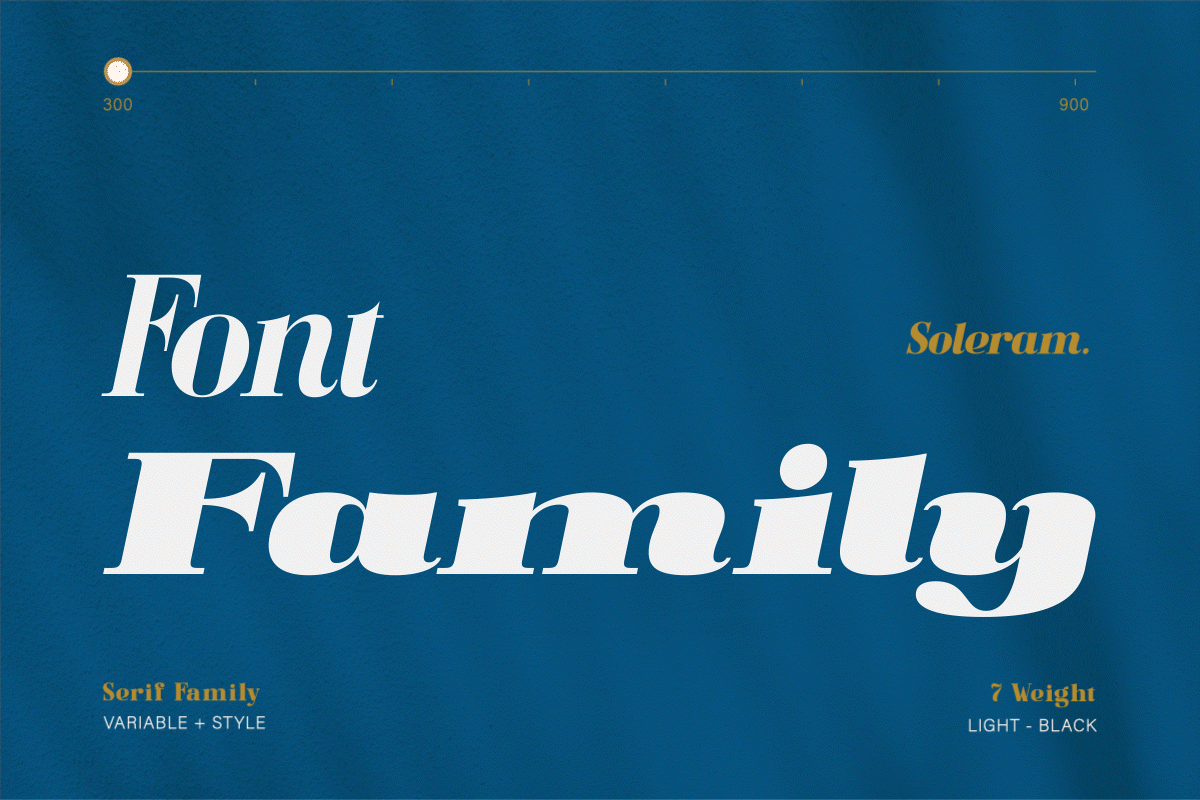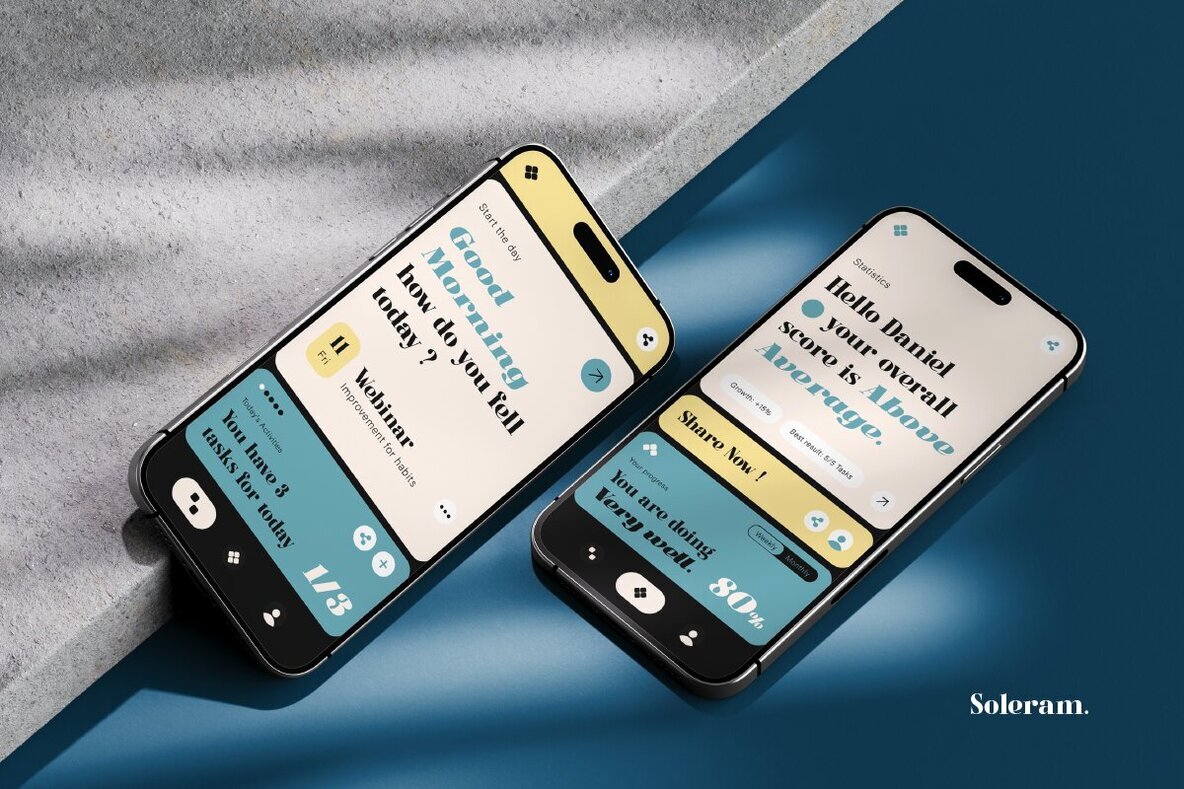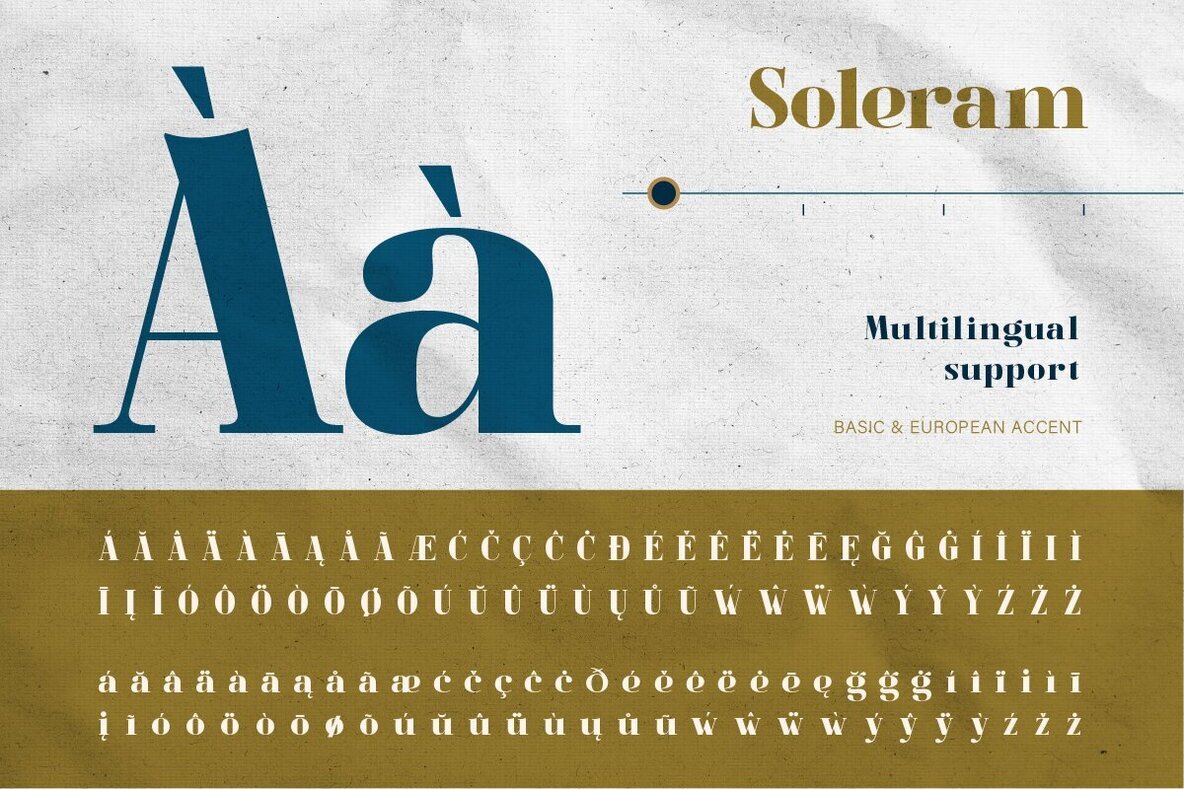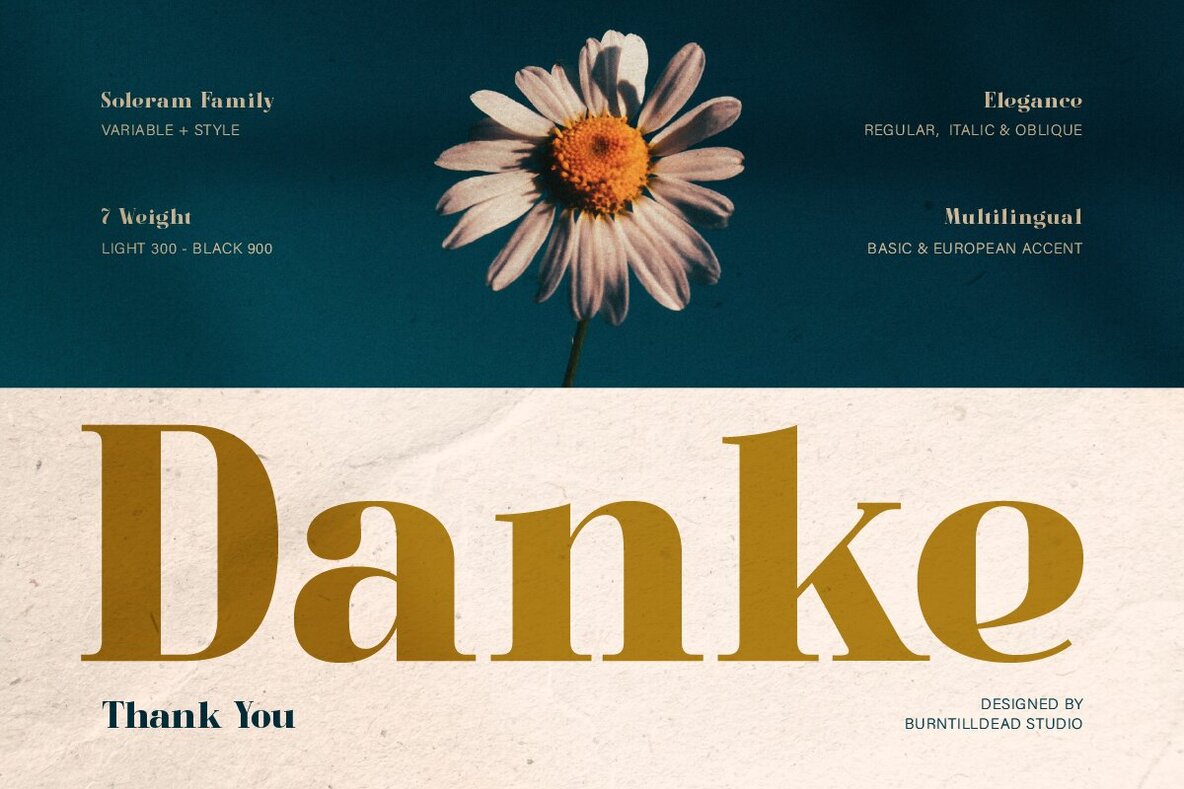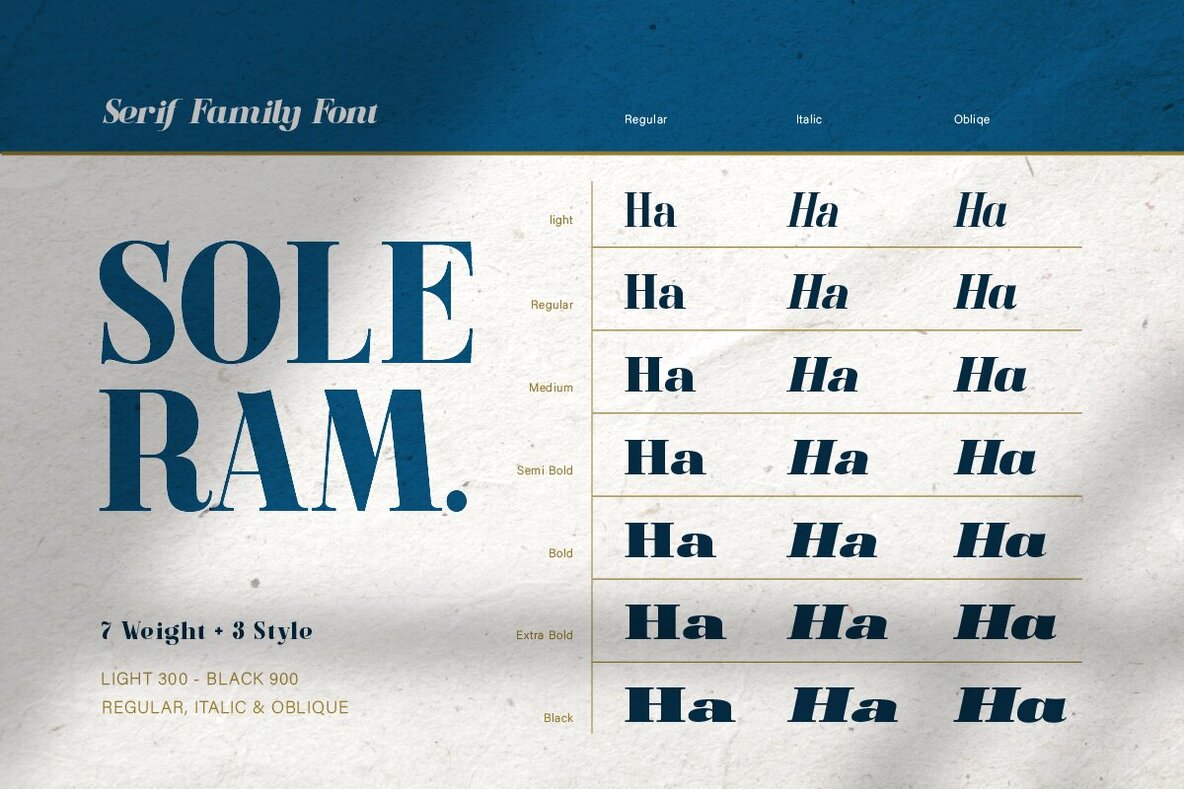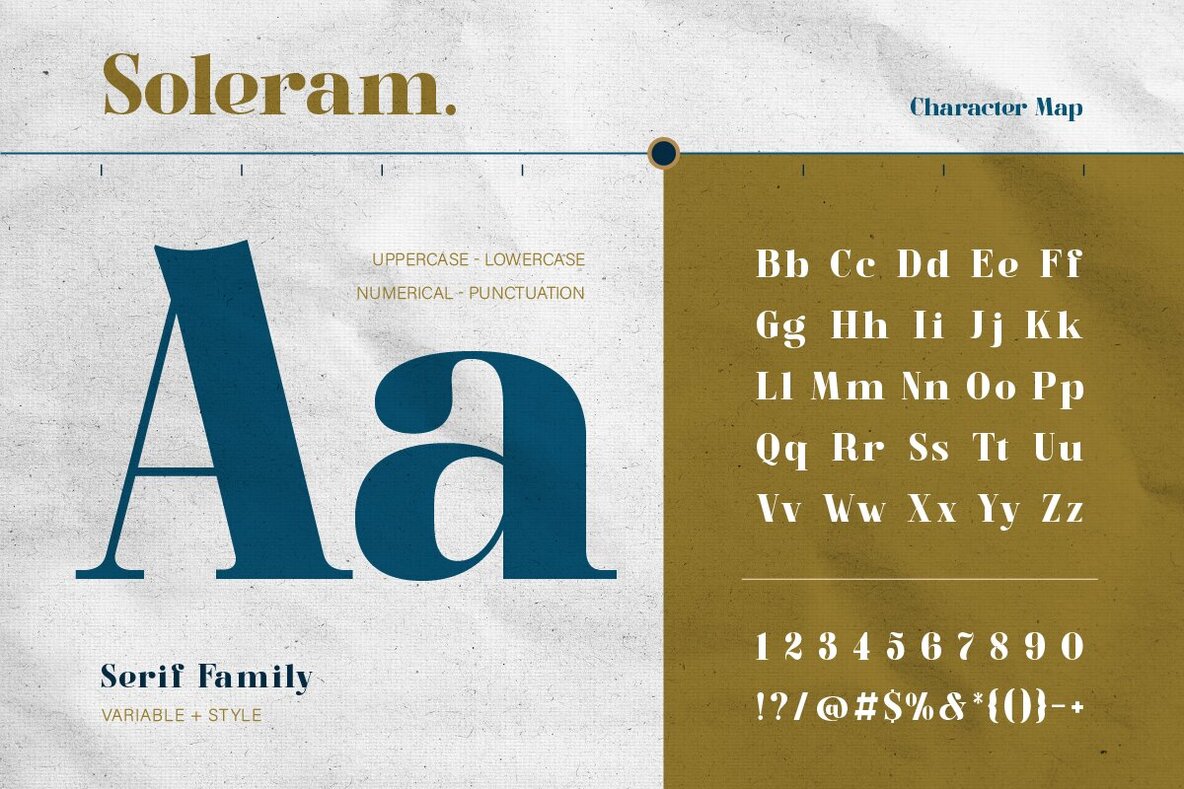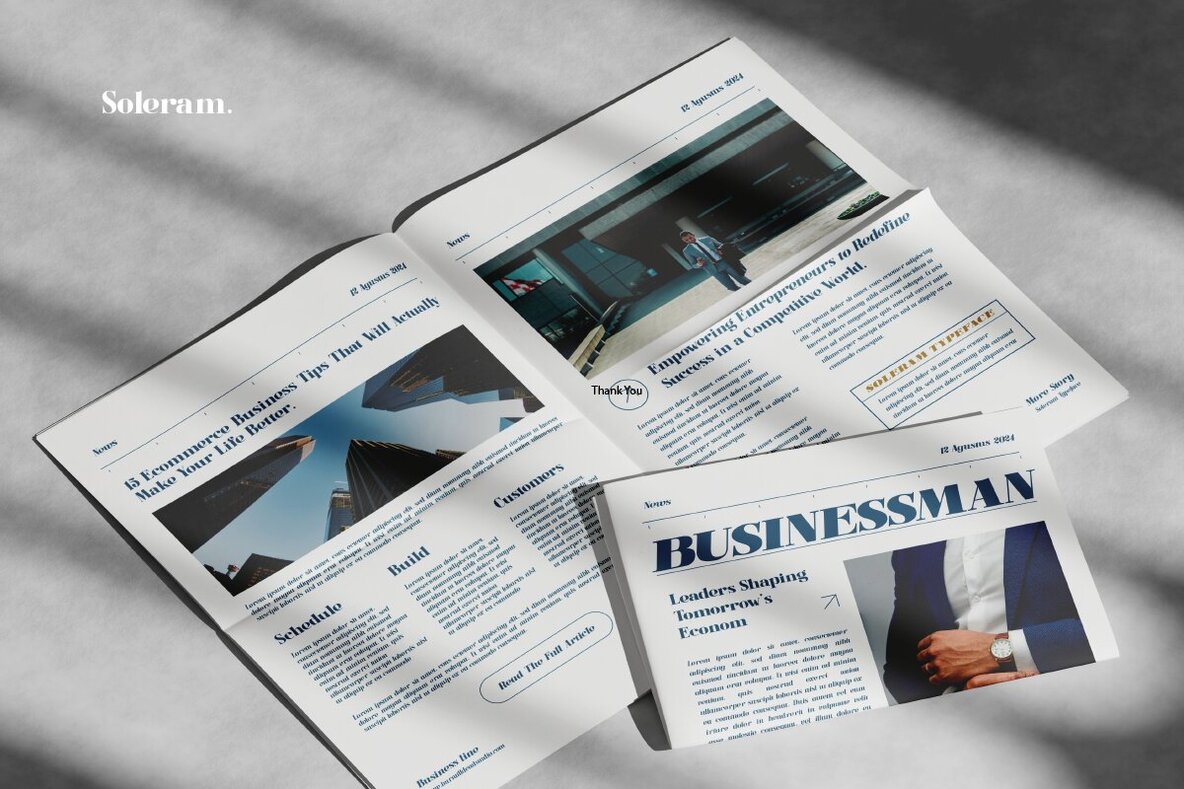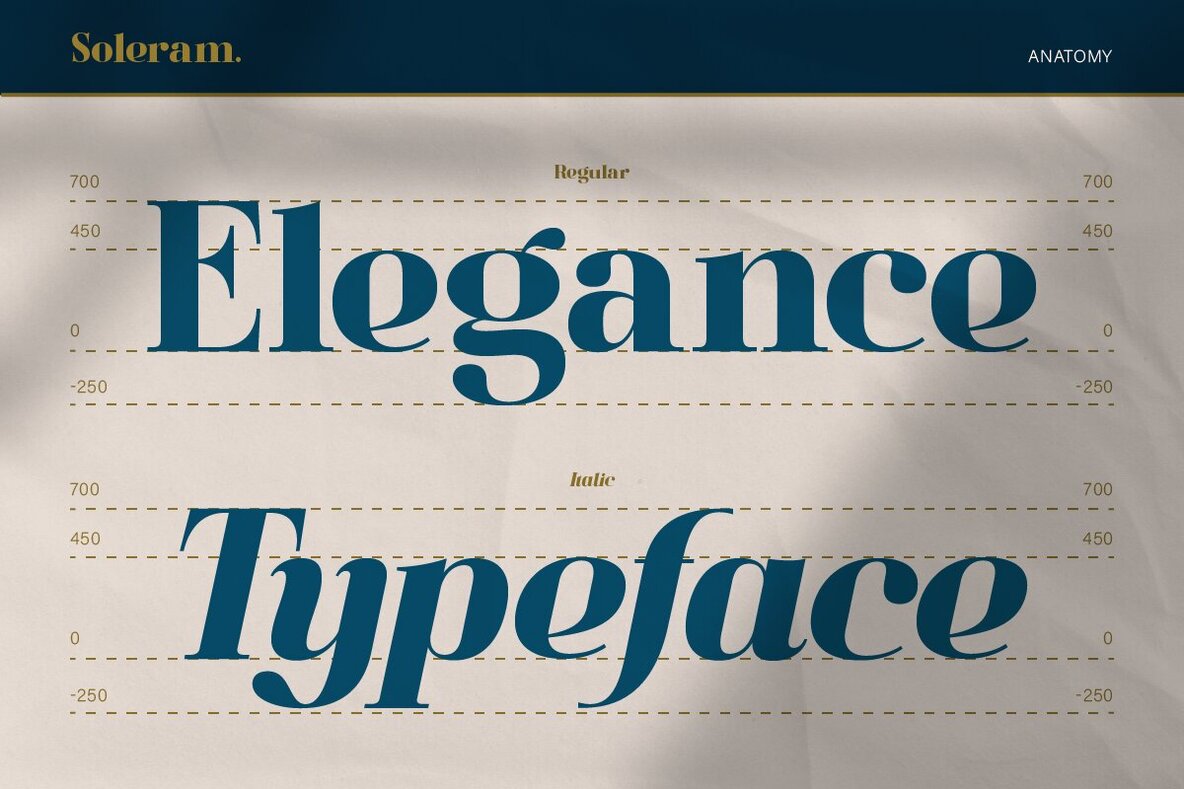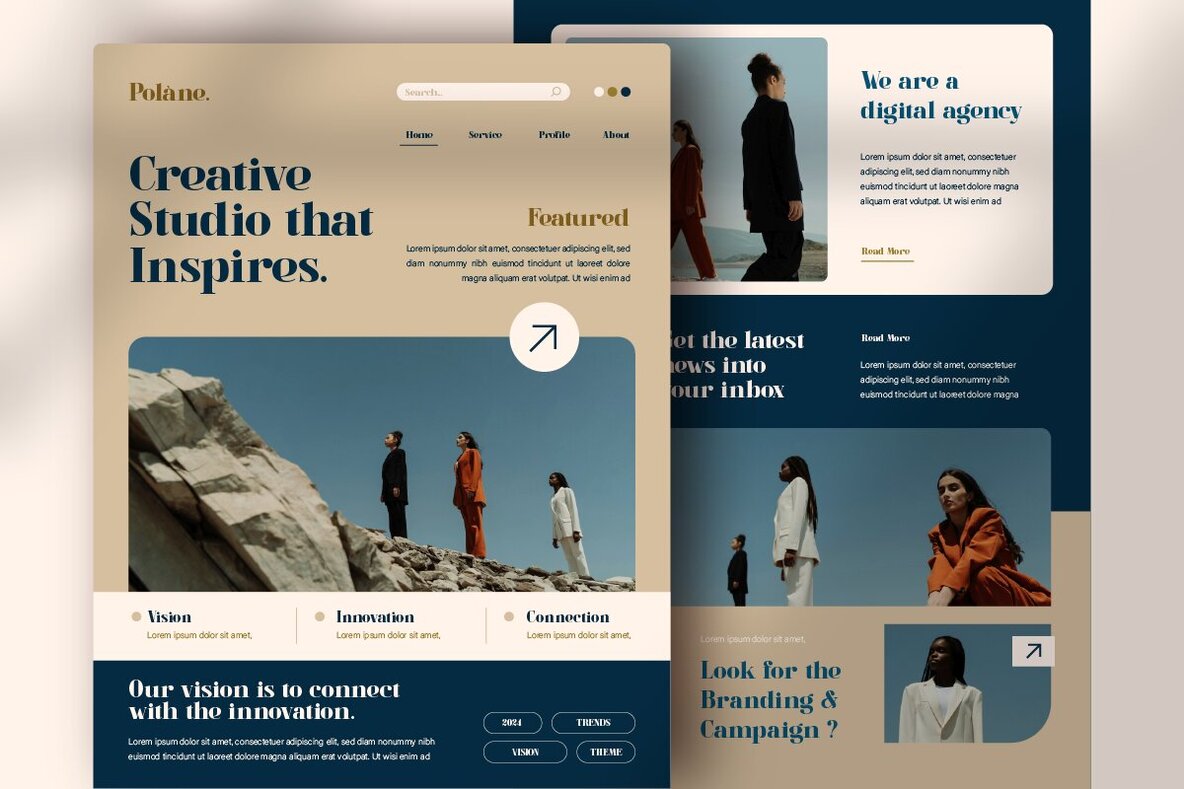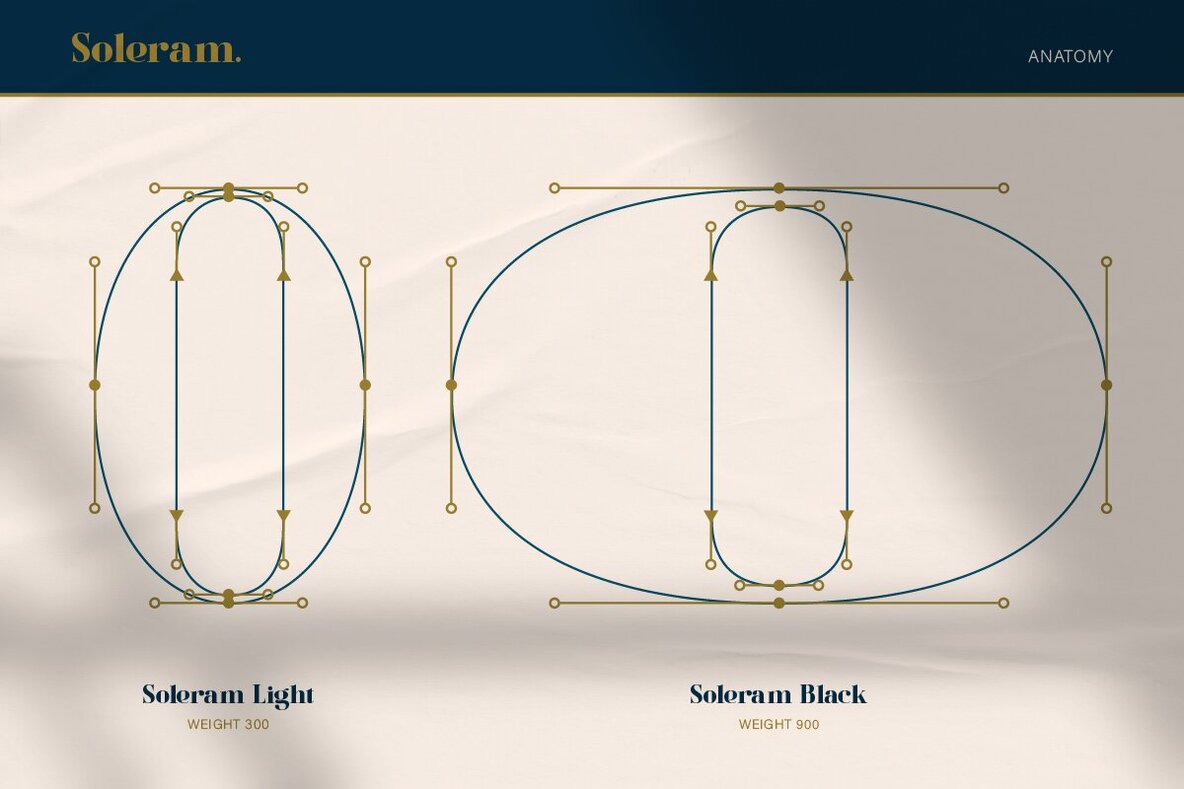
Soleram Font
Soleram is an elegant serif font that offers versatility with its modern design and three distinct styles: regular, italic, and oblique. Available in eight different weights ranging from light to black, this font supports both basic and European accents, making it suitable for various design needs. Whether used for headlines, body text, or branding, Soleram ensures readability and a refined appearance, enhancing the overall visual appeal of any project.
Notable features of Soleram include a complete A-Z set, numbers, punctuation, and multilingual support, which provides comprehensive coverage for diverse design requirements. This serif font is perfect for graphic and digital designers who seek a sophisticated yet versatile typeface for their creative projects.